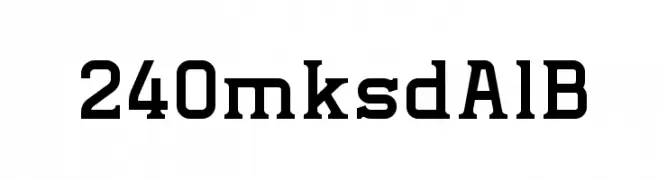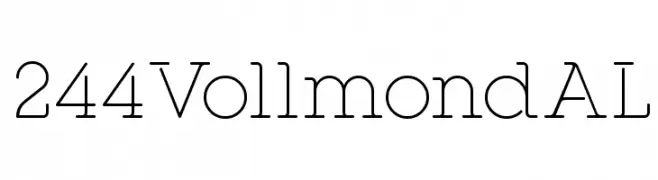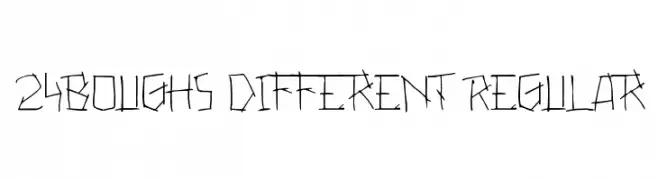
• 240mksdAlB
A bold slab serif font with strong, block-like serifs and a robust design.
• 240mksdKt
Bold, geometric sans-serif Japanese font with strong, clean lines.
• 243Ground AL
A modern, geometric font with clean lines and a minimalist style.
• 244VollmondAL
A modern, geometric font with clean lines and balanced spacing.
• 24boughs Different Regular
• 24hourbauer
• 24LED
A dot matrix style font with a digital and modern aesthetic.
• 25000
• 252MKSDGB UltraBold
A bold, rounded font with a modern and approachable style.
• 256 Bytes